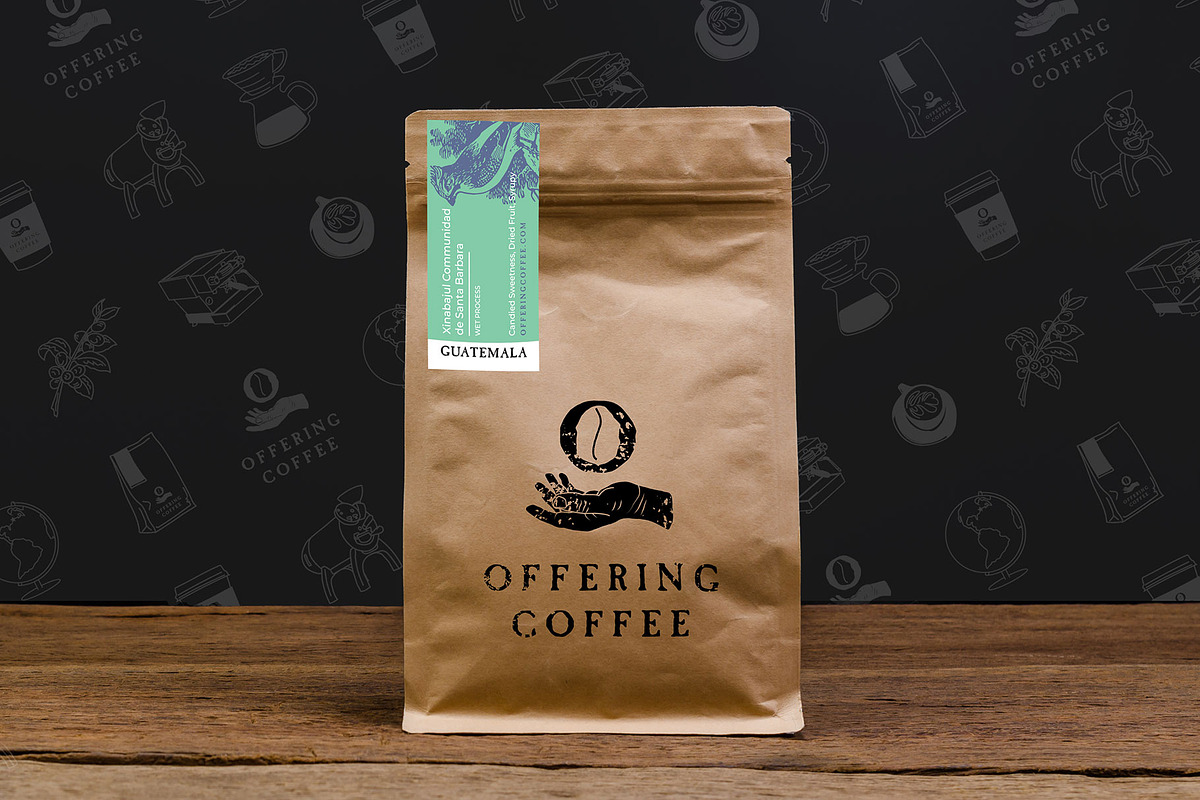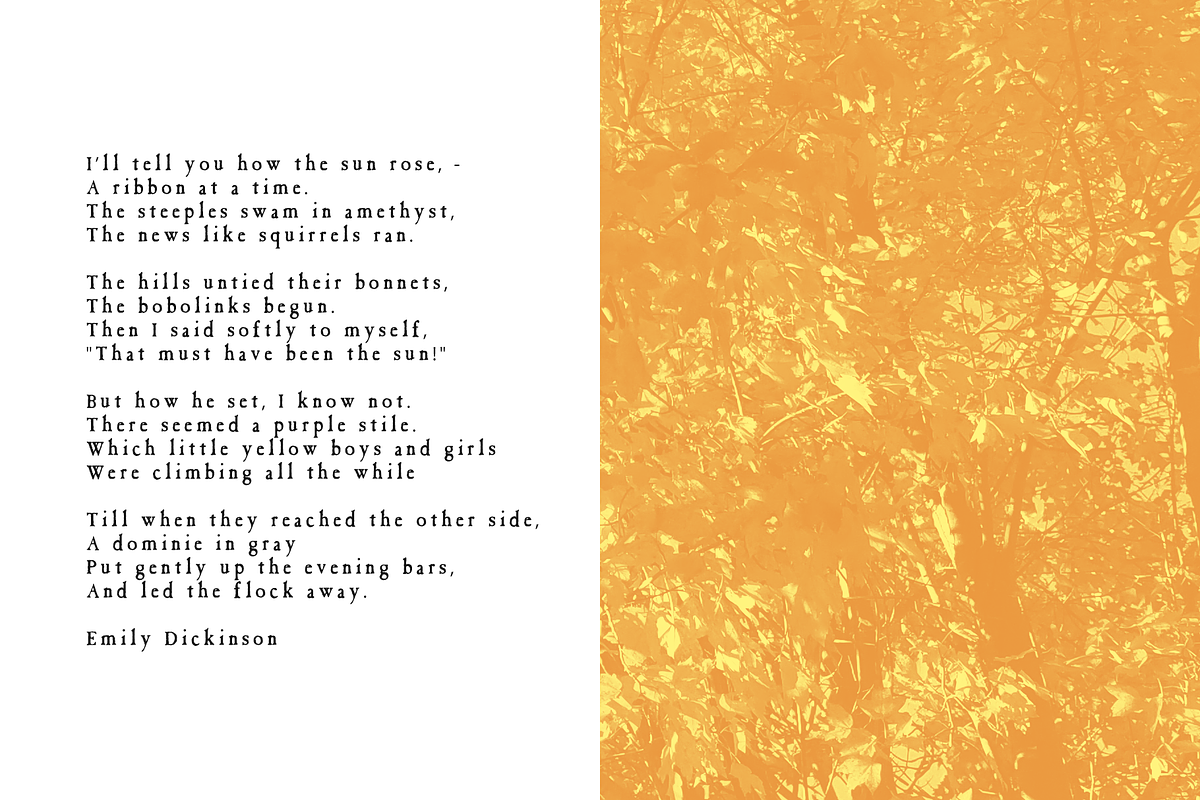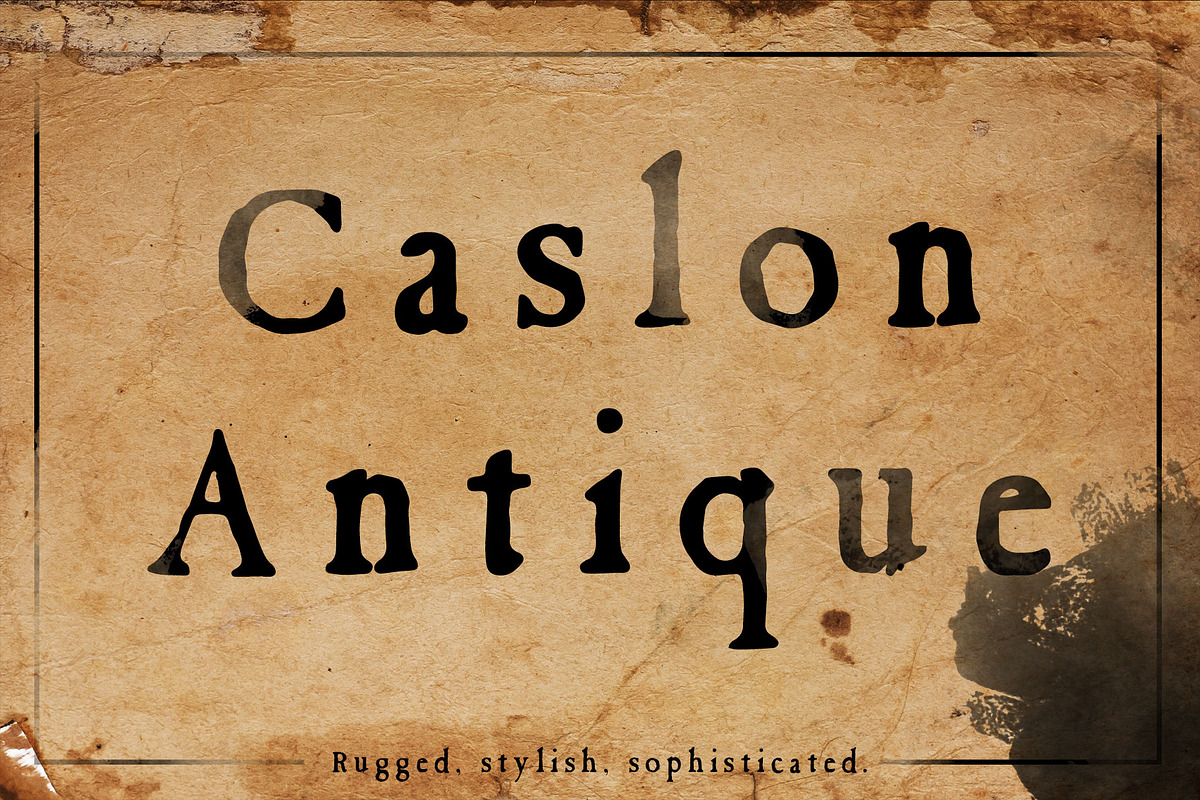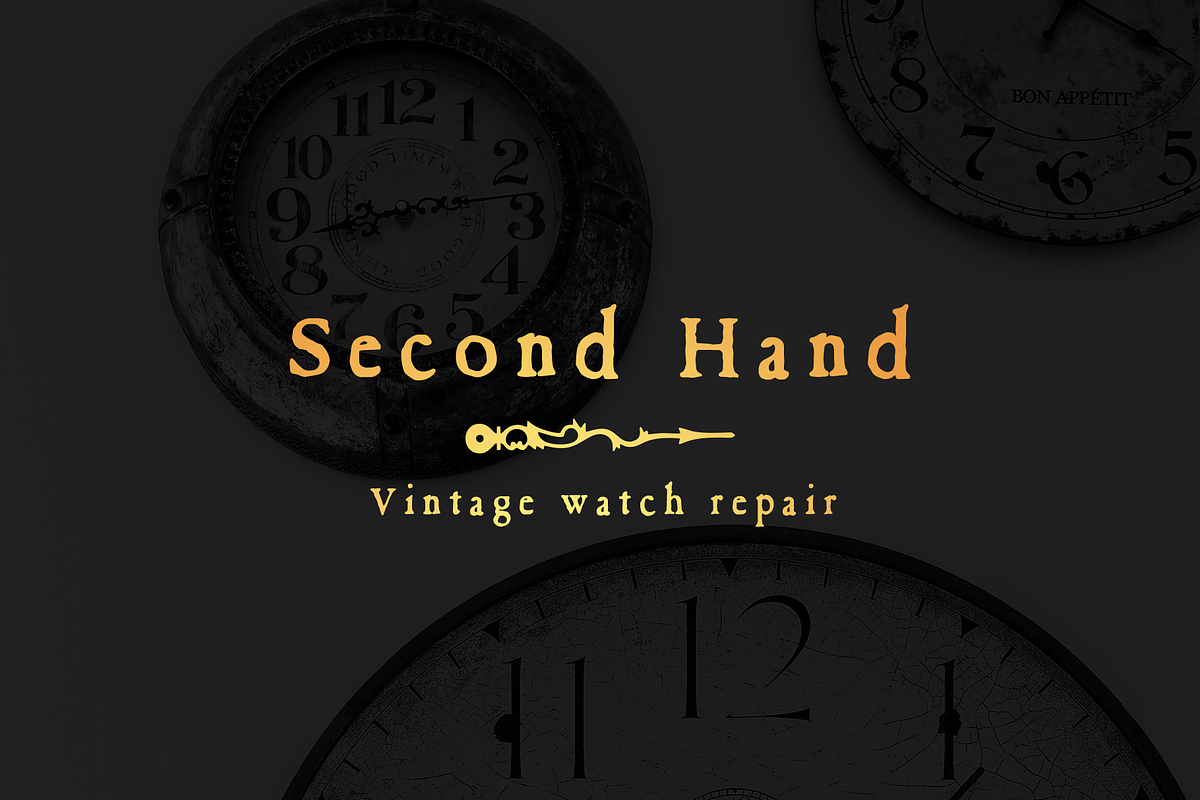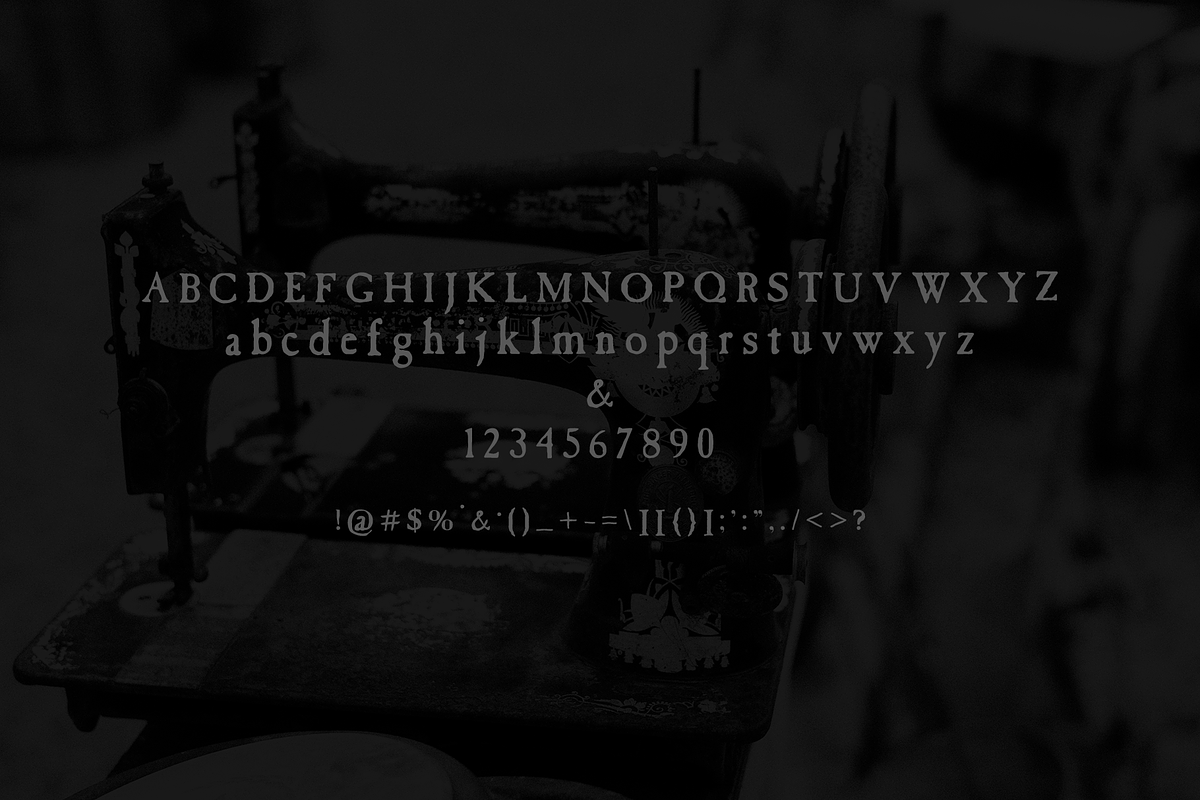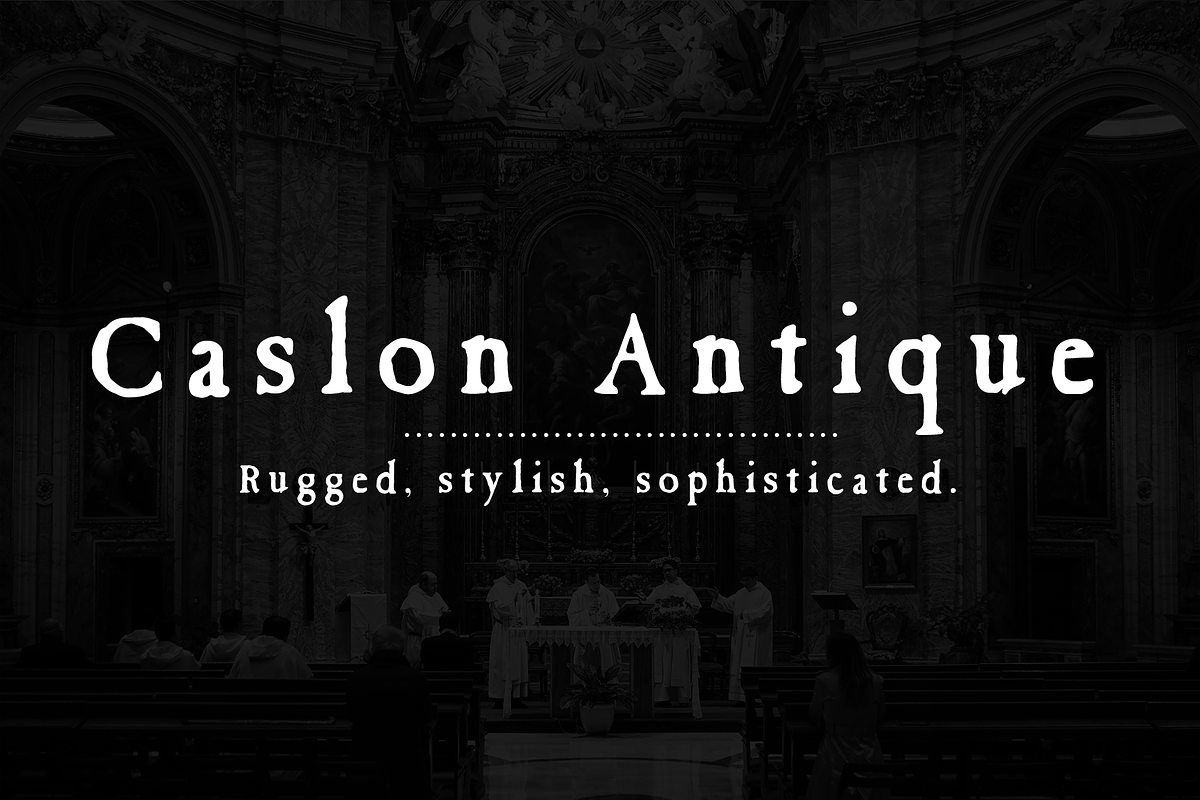
Caslon Antique vintage rugged font
Caslon Antique is my take on a classic typeface. When I was putting this together I was thinking about all these new typefaces with their straight lines and perfectly rounded corners and I thought "hey... how 'bout we don't do that this time". I wanted this to feel like a pen had been loaded with just a little too much ink and was put to a paper that maybe wasn't perfectly pressed.
This font has a LOT of personality. It's slight imperfections make it perfect for bringing that old, heritage vibe that's so popular right now.